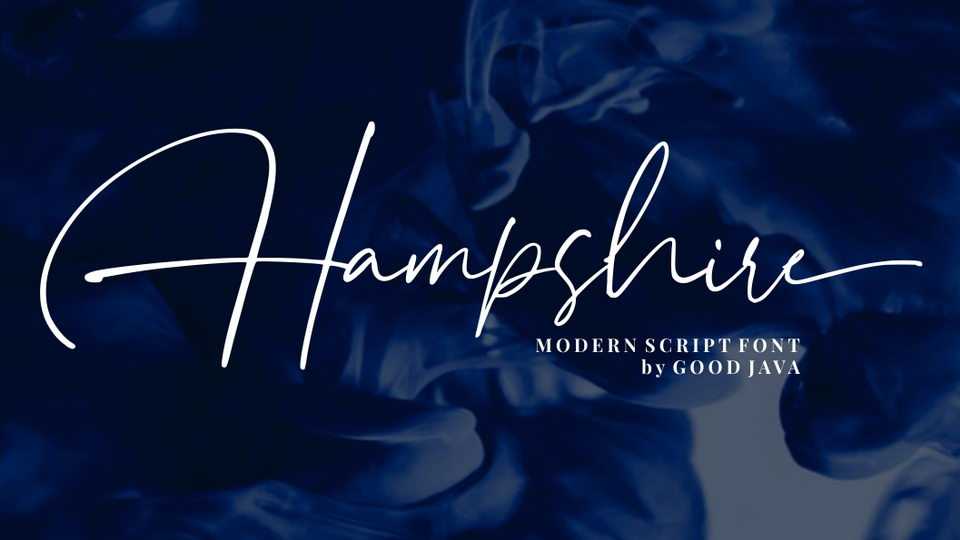
Download Hampshire font, a casual signature typeface with a natural and modern handwritten style. Hampshire is perfect for logo, invitation, stationery, wedding designs, social media posts, advertisements and more.
Designer: Good Java Studio